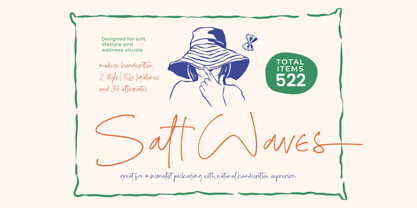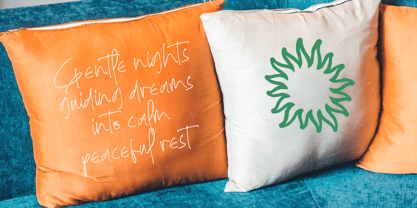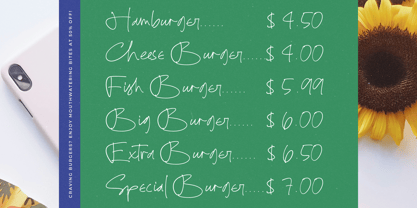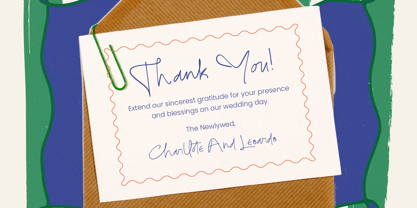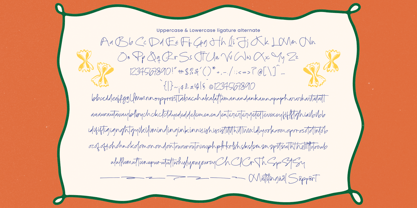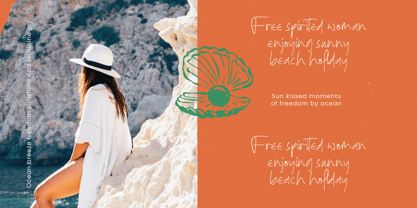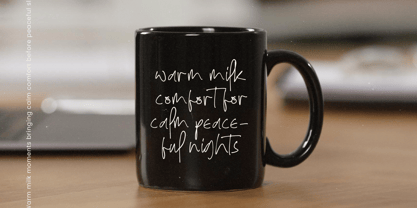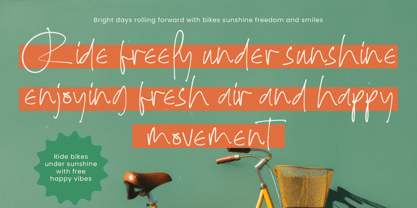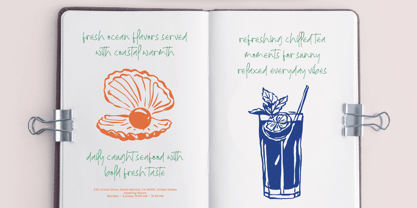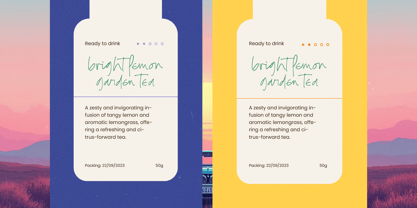
Salt Waves
von Stylishtype Studio
Die Schriftfamilie Salt Waves wurde von Heru Utama Putra entworfen und von Stylishtype Studio veröffentlicht. Salt Waves enthält 2 Stile und Familienpaketoptionen. Mehr über diese Familie
Salt Waves is a modern handwritten font crafted for soft lifestyle, wellness branding, and minimalist packaging that needs an authentic, natural handwritten touch. Featuring two expressive styles with 150 ligatures and 34 alternates, this typeface delivers organic flow, gentle rhythm, and relaxed character—ideal for skincare labels, boutique products, editorial layouts, soft marketing visuals, and any creative project that seeks calm, warmth, and effortless aesthetic appeal. With a total of 522 items included, Salt Waves gives designers a complete toolkit to build harmonious, human-centered design systems with ease.